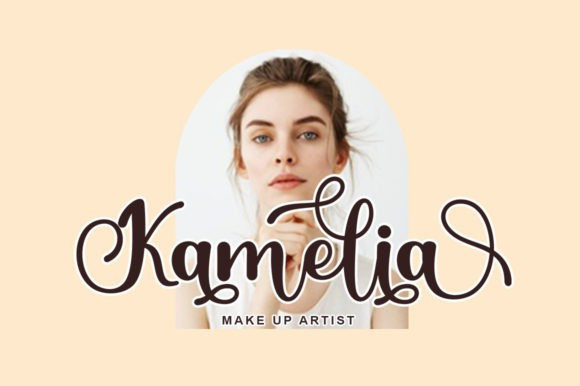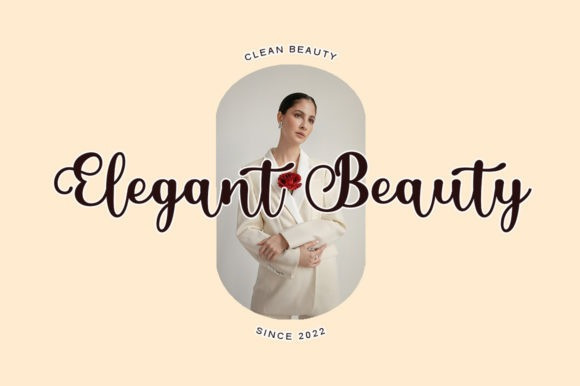
Anulika Font
Anulika Script Font is a romantic and sweet calligraphy typeface with characters that dance along the baseline. It has a casual, yet elegant touch. This font is PUA encoded which means you can access all of the glyphs and swashes with ease!